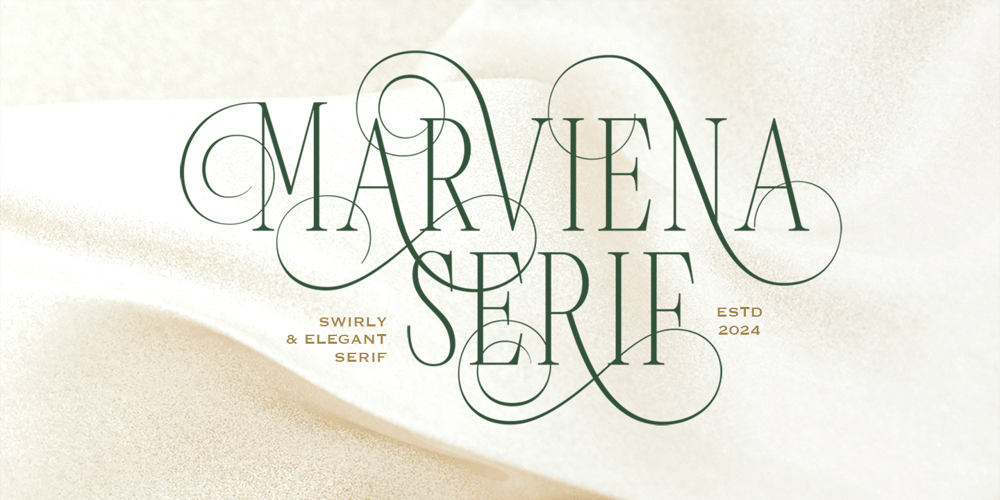
Marviena Font Family was designed by Sarid Ezra, Dzikrul Aulia and published by Bale Type. Marviena contains 1 styles and family package options. Marviena is an all caps tall serif with bunch swirly alternates. You can use this font for any designt that need the elegant and luxurious looks. With different height and shape from the uppercase and lowercase will make your design more stunning. Combine the alternates with the regular base to get the best appearance. This font also support multi language!